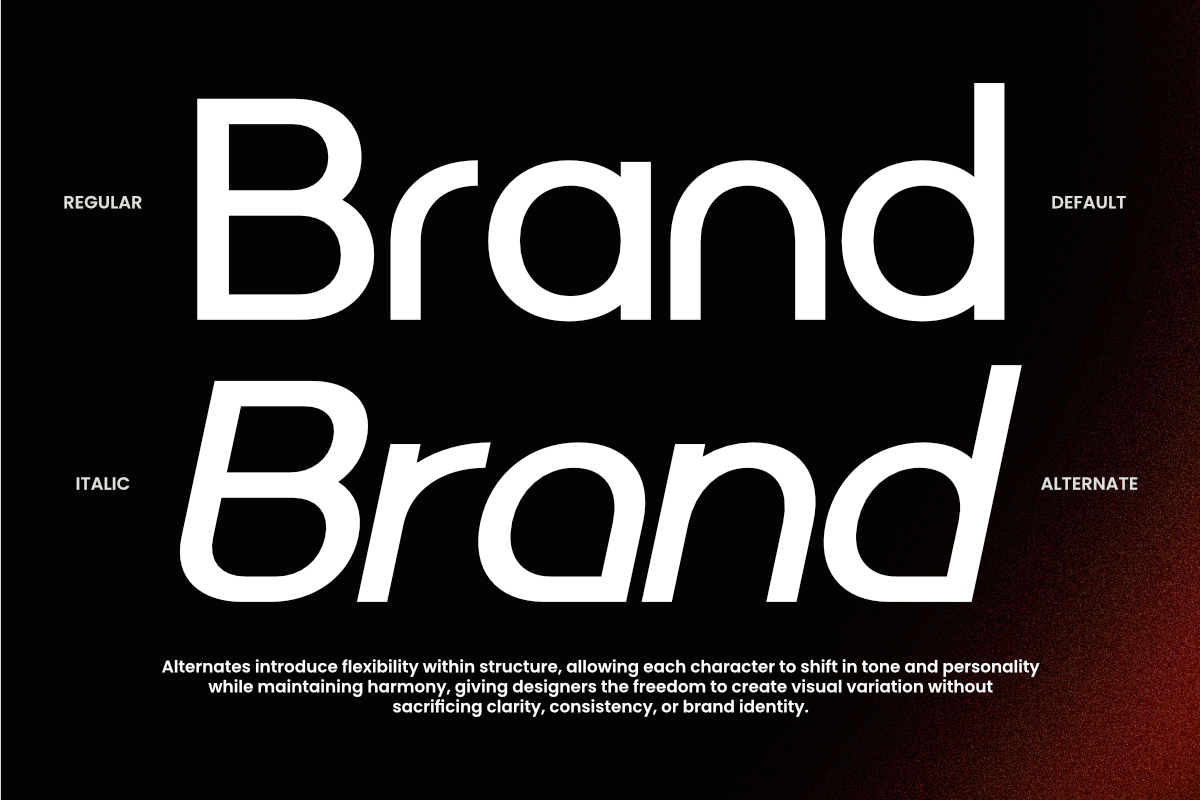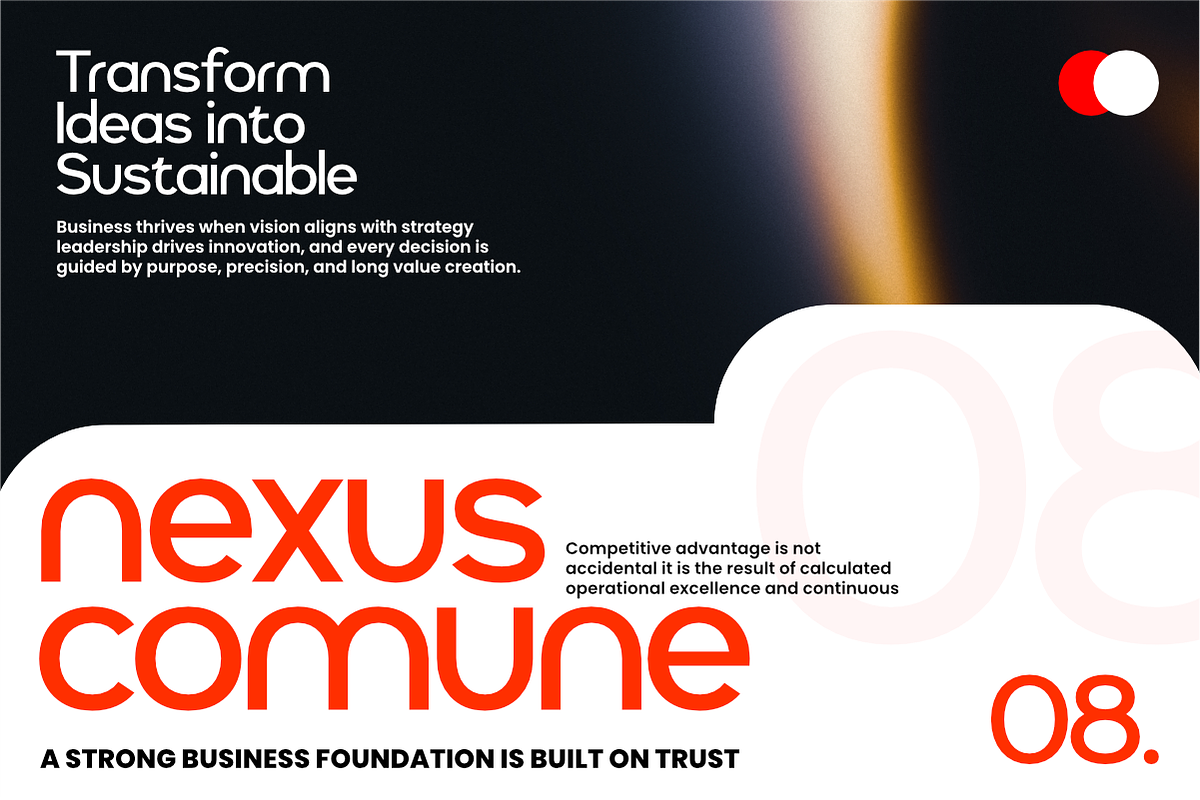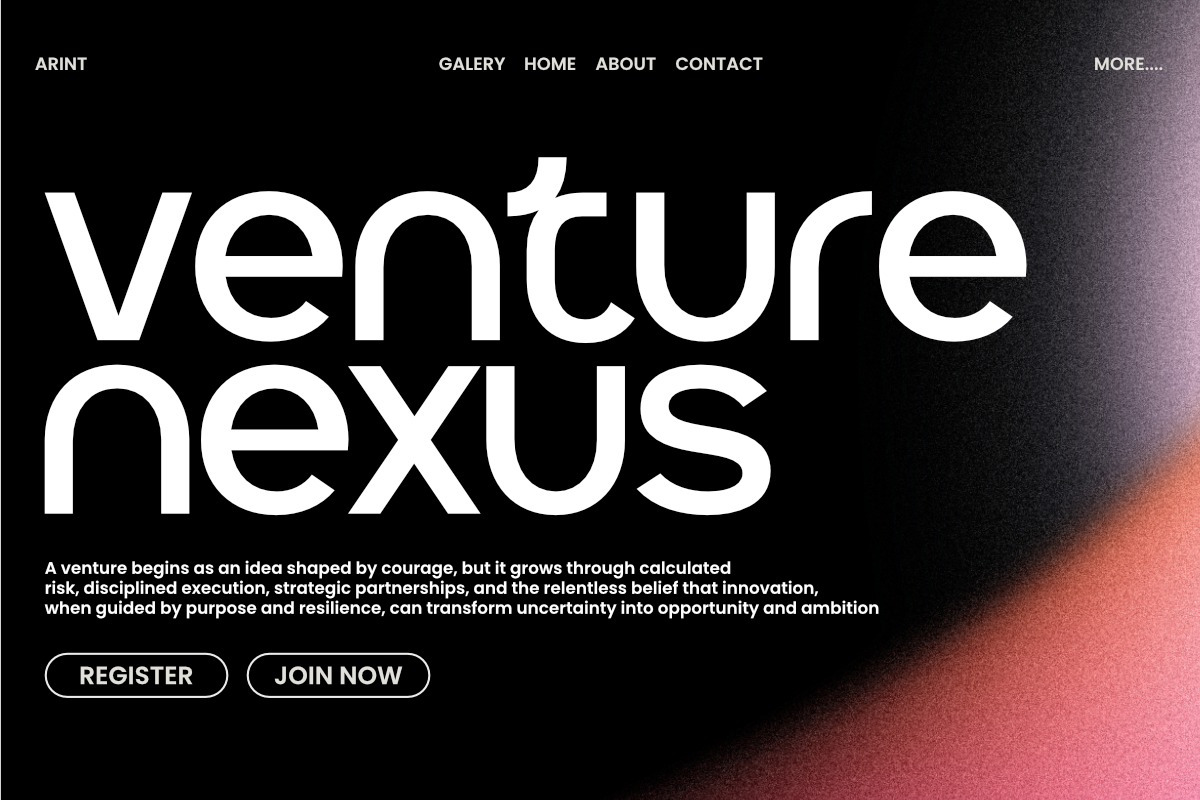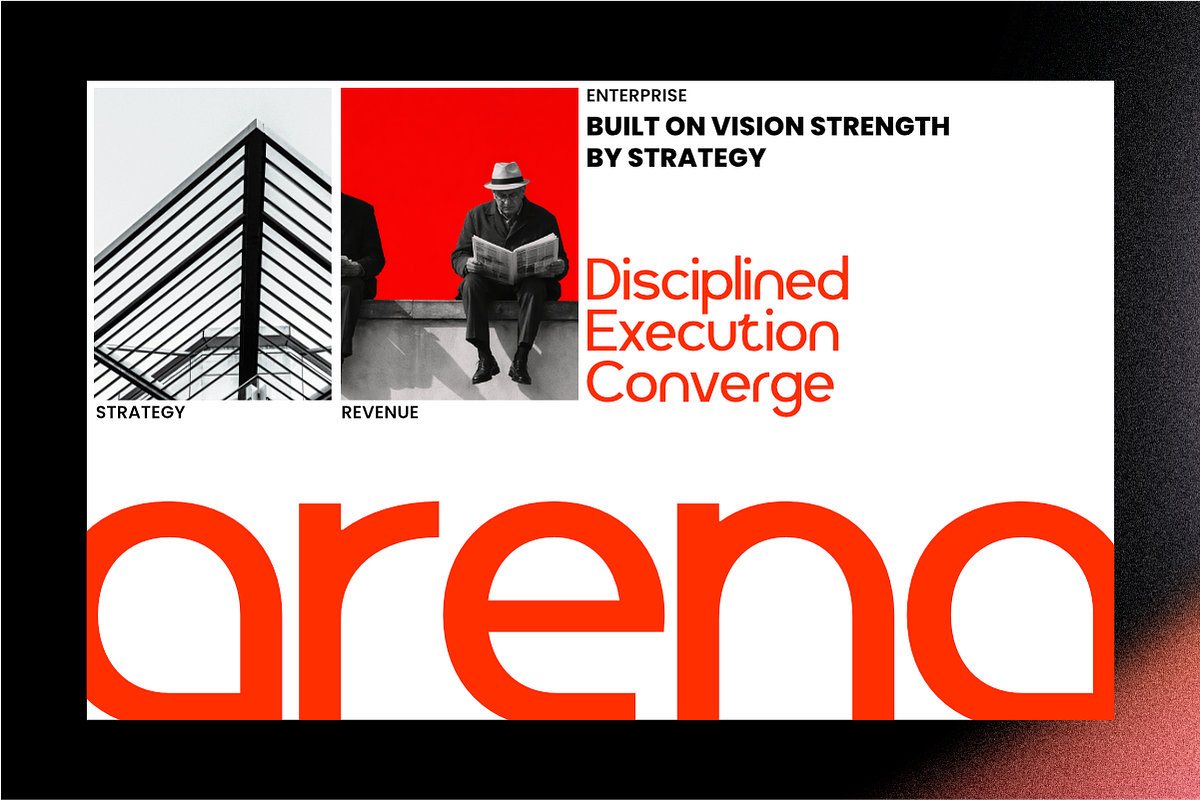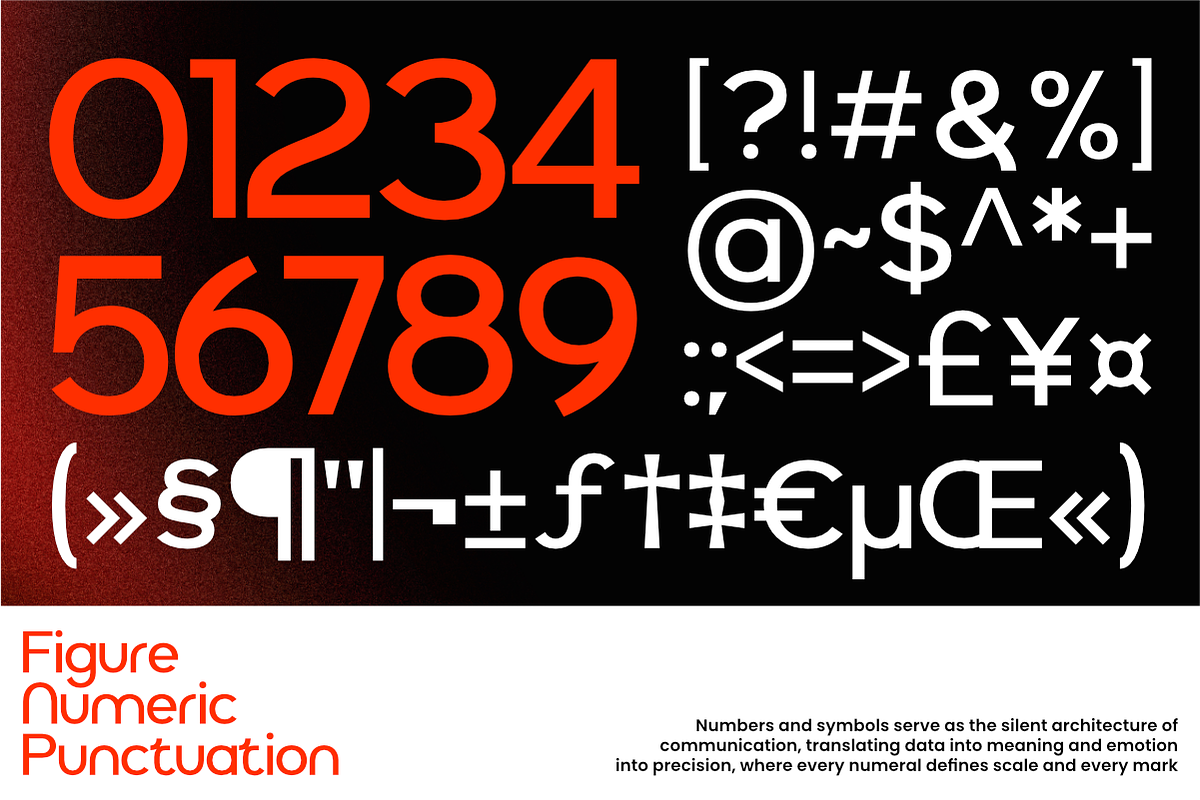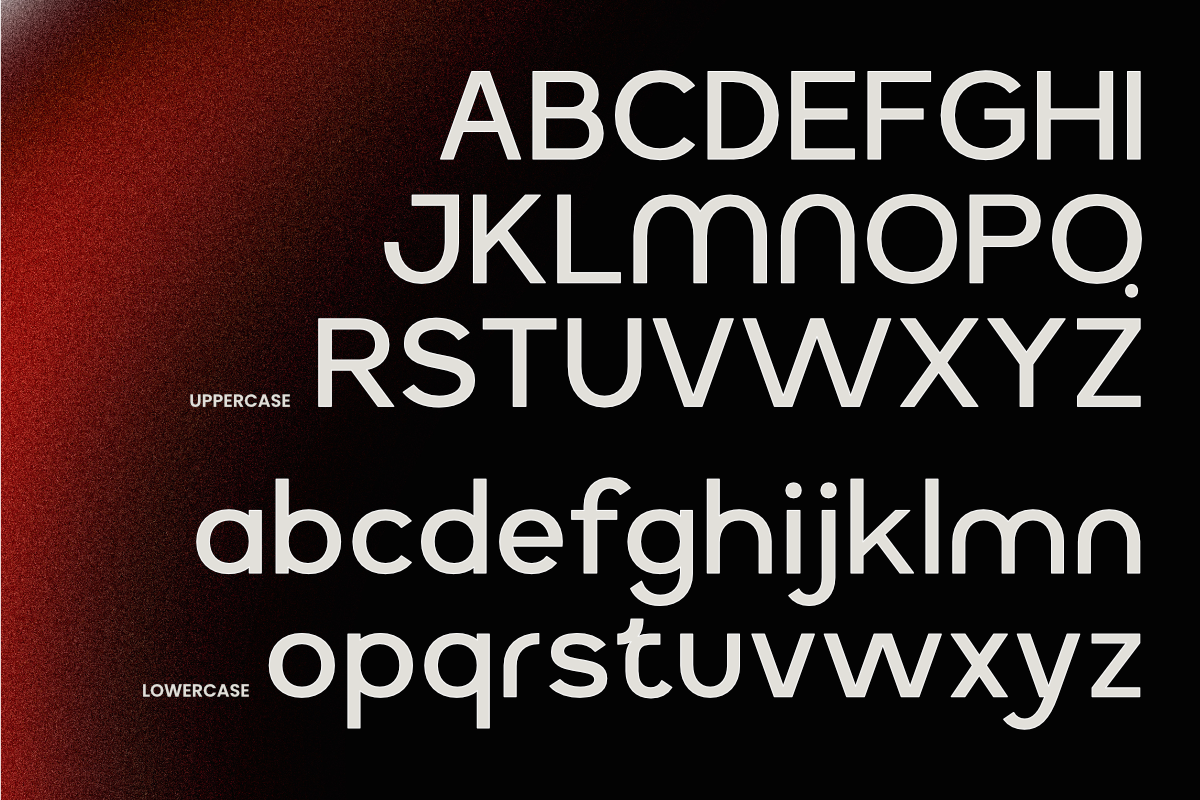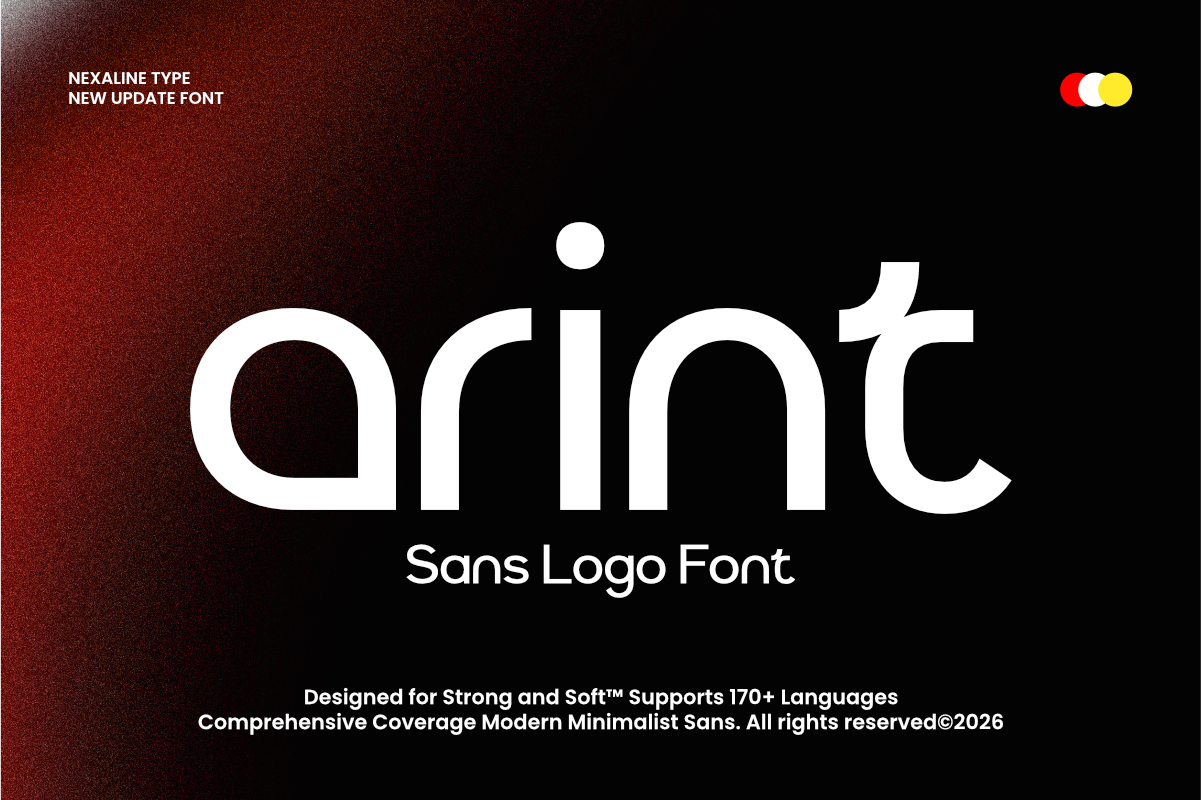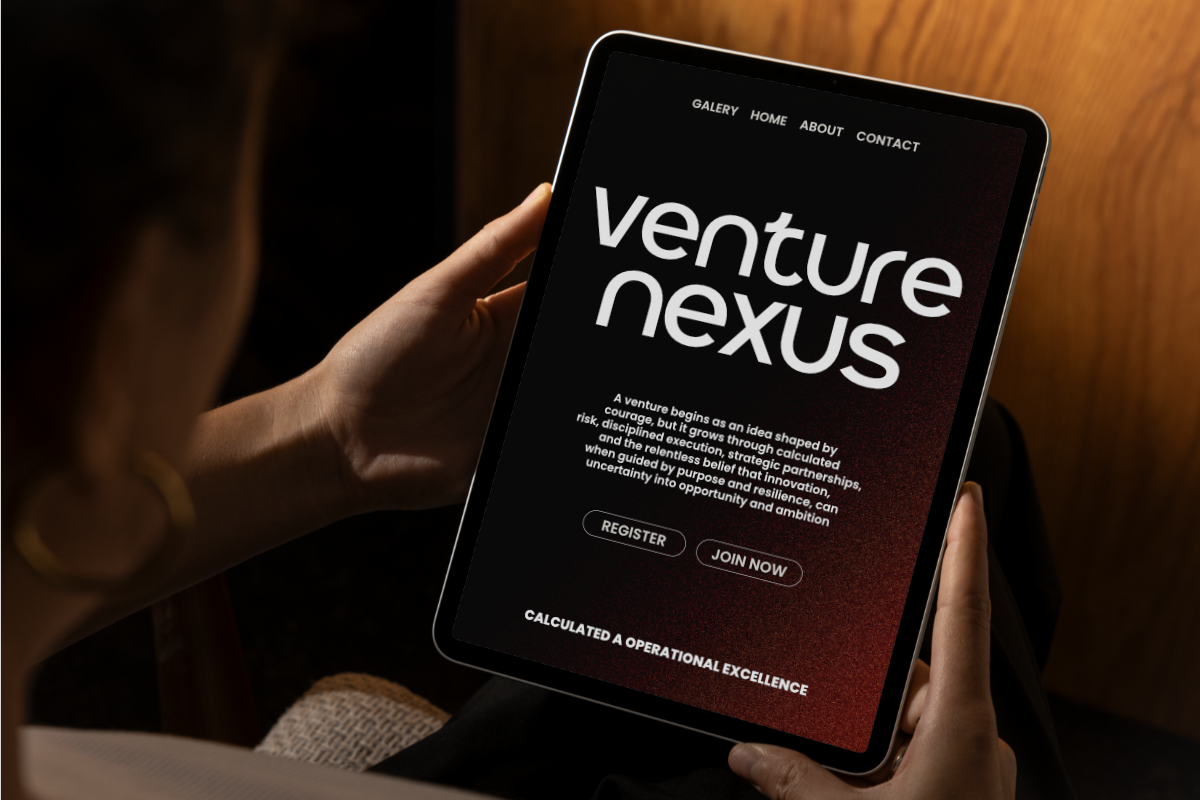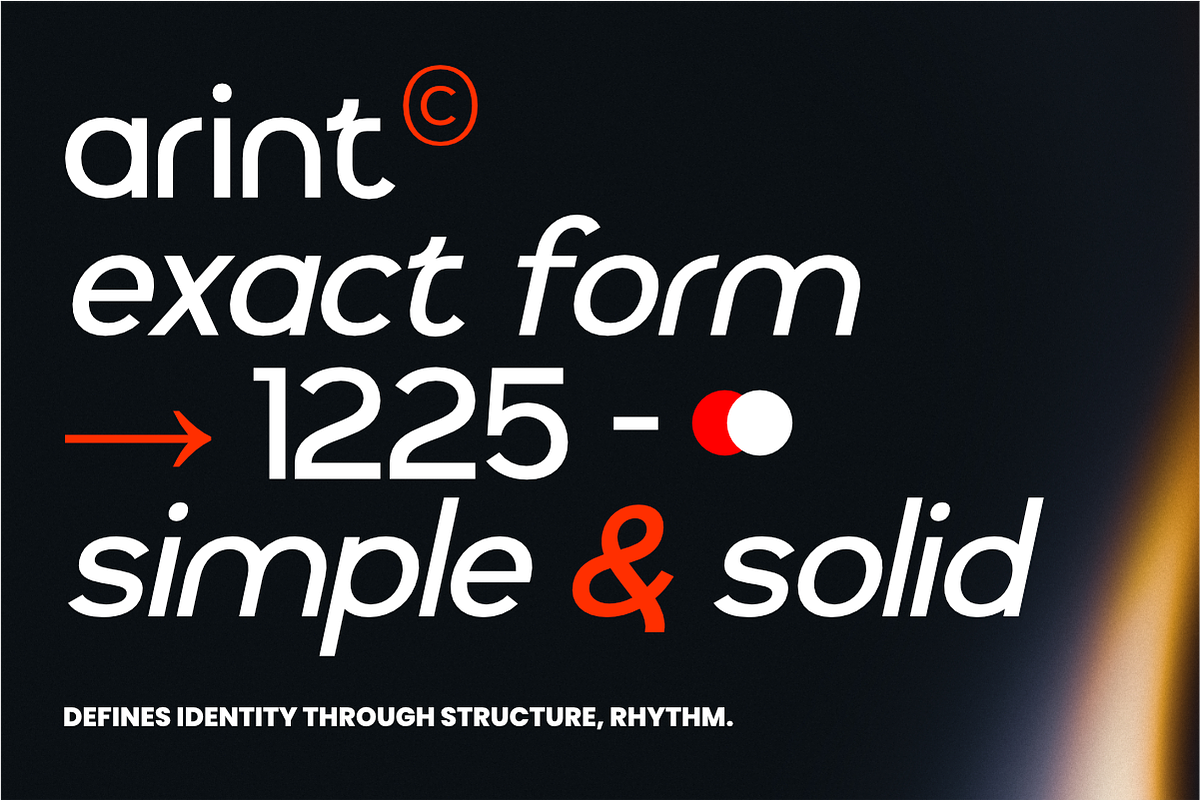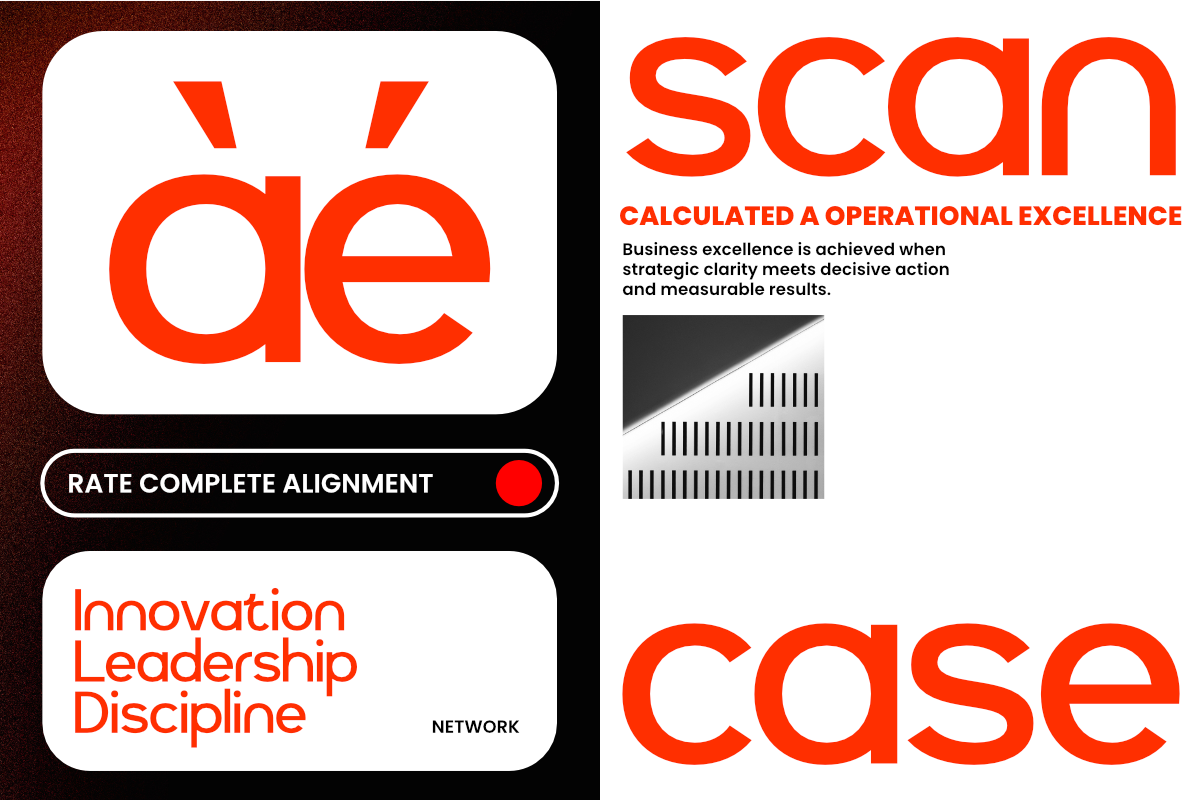
Arint - Sans Serif Logo Font
Arint — Logo Font is a clean and modern display typeface designed for minimal branding and distinctive wordmark design.
With smooth curves, rounded letterforms, and a clean visual structure, Arint delivers a friendly and contemporary typographic voice. Its simplified geometry and soft terminals create a clear and approachable appearance, ideal for logo-focused design.
Designed to emphasize clarity and memorability, this typeface balances minimal form with strong visual identity, making it suitable for branding projects that require a modern and recognizable logo style.
Balanced proportions and refined simplicity allow Arint to perform effectively across a wide range of branding contexts. Whether used for logos, wordmarks, brand identities, or minimalist visual systems, this typeface adds clarity and modern character to contemporary design projects.